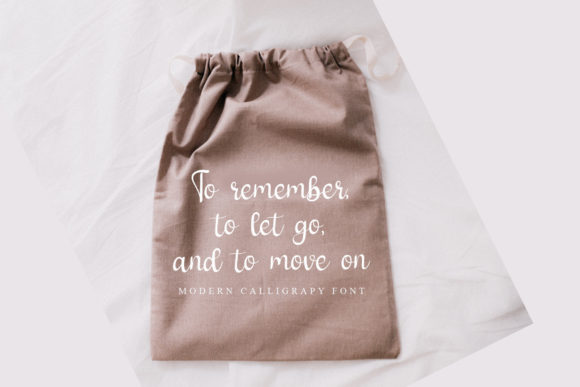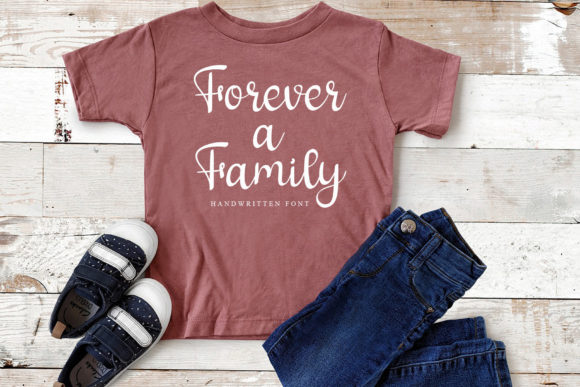
Layla Font
db-ku.com - Script & Handwritten -- Layla is a beautiful handwritten font. It is perfect to be used on wedding invitations, greeting cards, billboards, logos, business cards, and any other design that requires a handwritten touch.